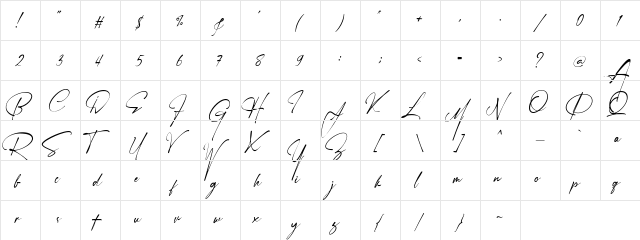
Janelotus-Demo Regular Font Preview
Janelotus-Demo Regular
Janelotus-Demo Regular Font Details
Design Context for Janelotus-Demo Typeface
Janelotus-Demo is a composed and adaptable typeface that performs quietly and consistently across a wide range of design contexts.